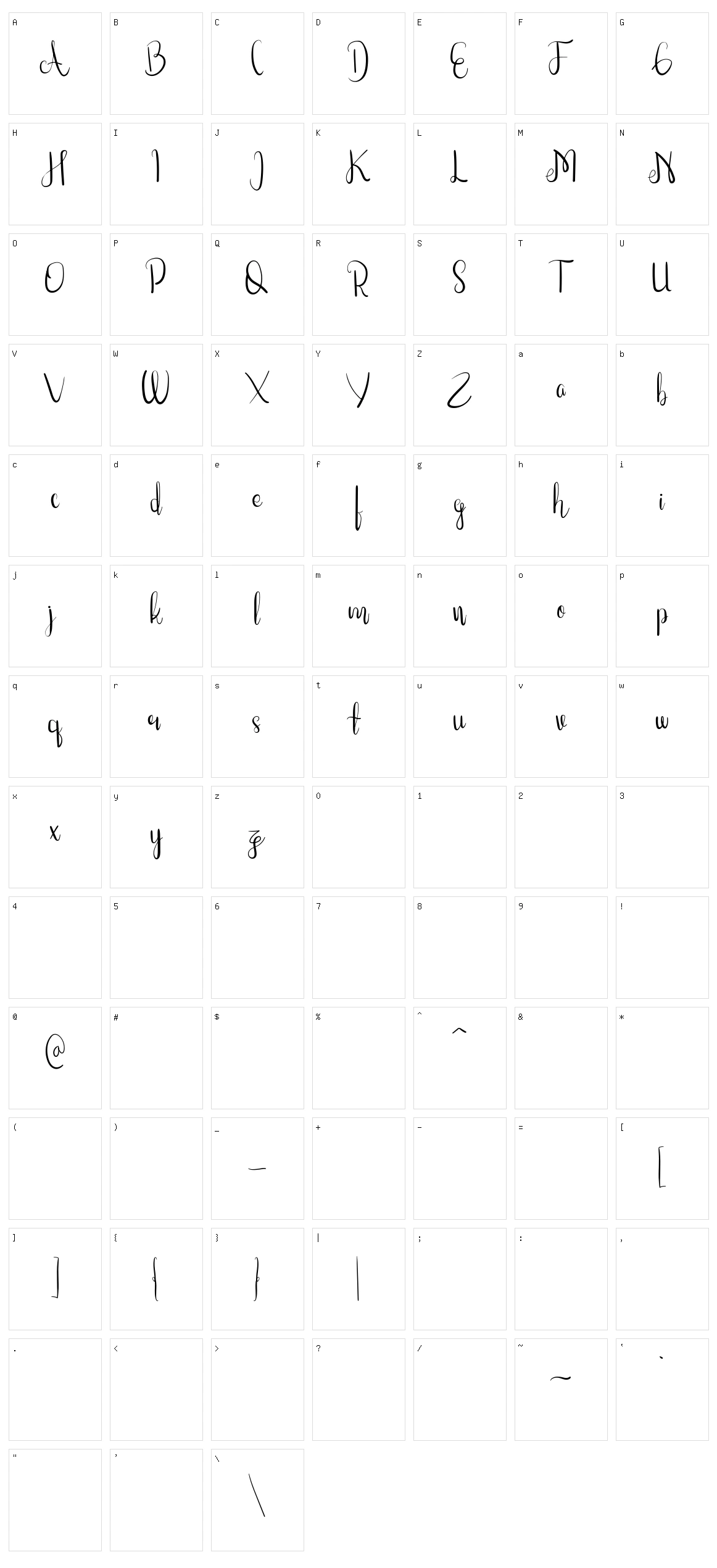
The free font Rosalinda is carefully designed by FallenGraphic Studio, showcasing a thoughtful balance of creativity and usability and falls under the Script font style. When you download the ZIP file, it contains only 59.8 KB of font files, making it lightweight and quick to download. Please review the license details below to understand permitted usage and distribution rights. If license information is not available, we recommend using this font for personal projects only or contacting the author directly for commercial usage permissions.